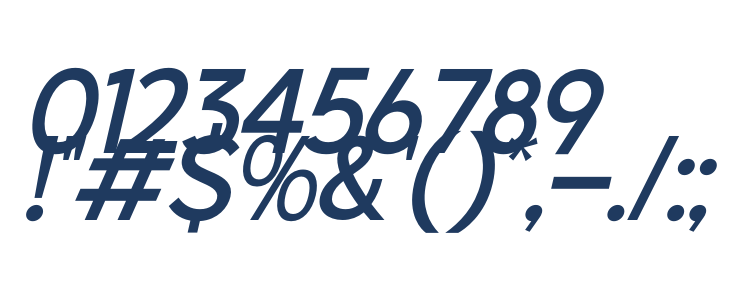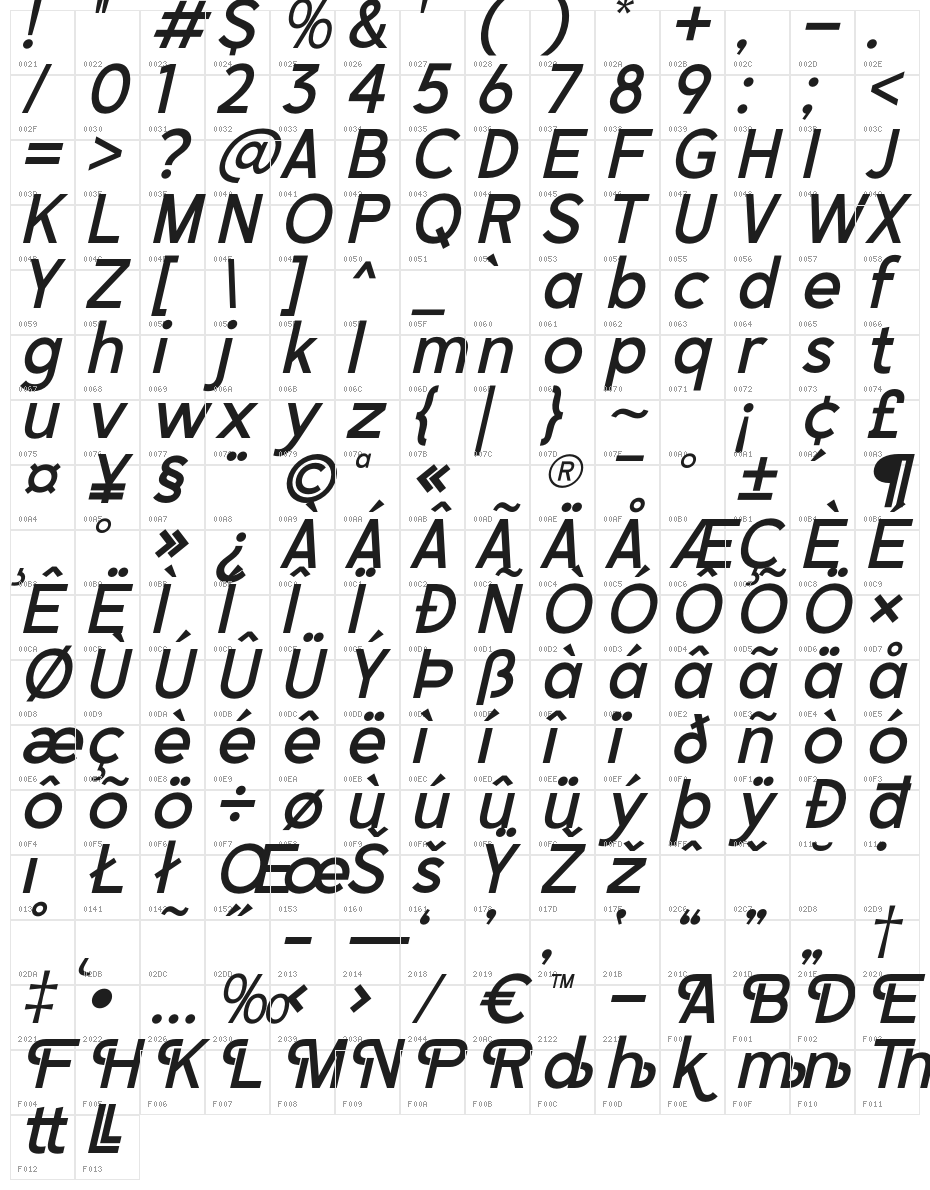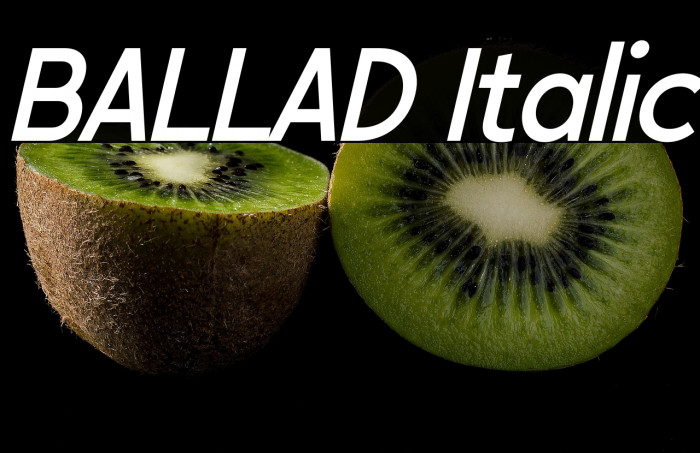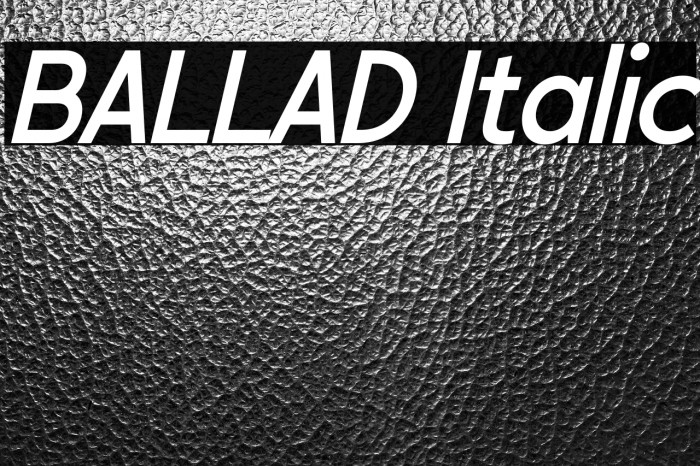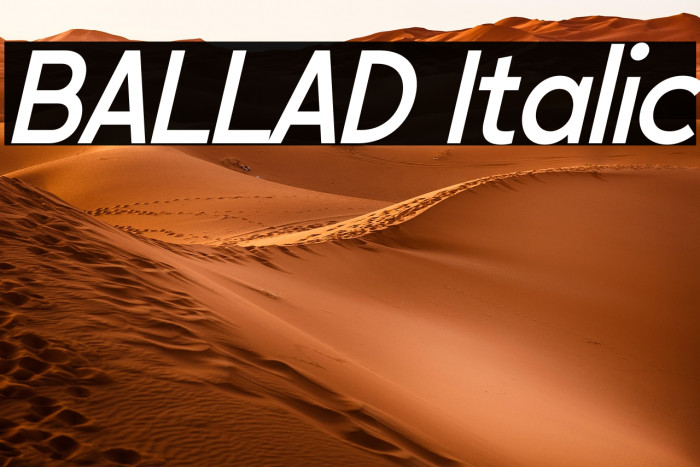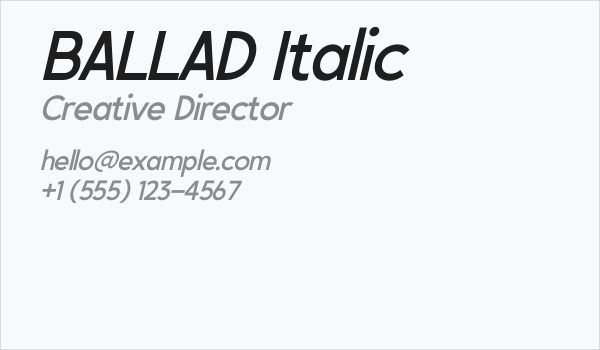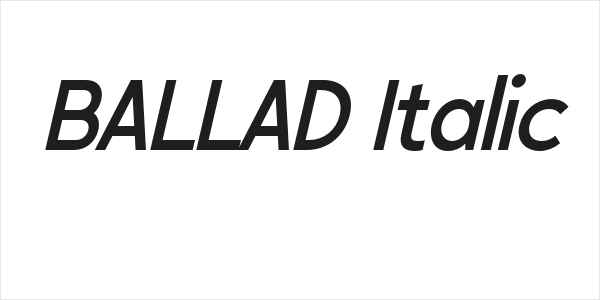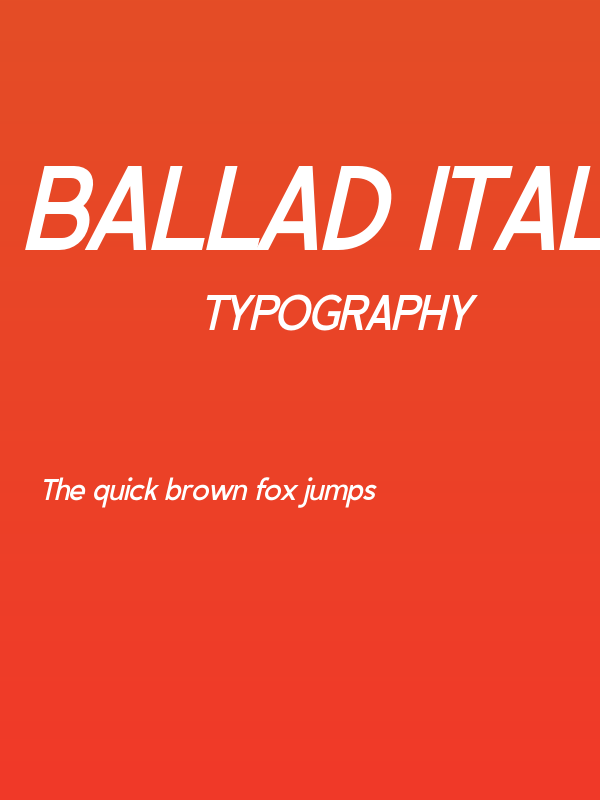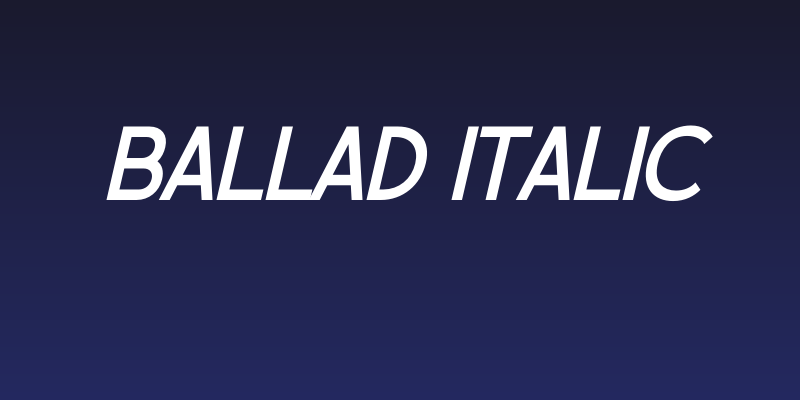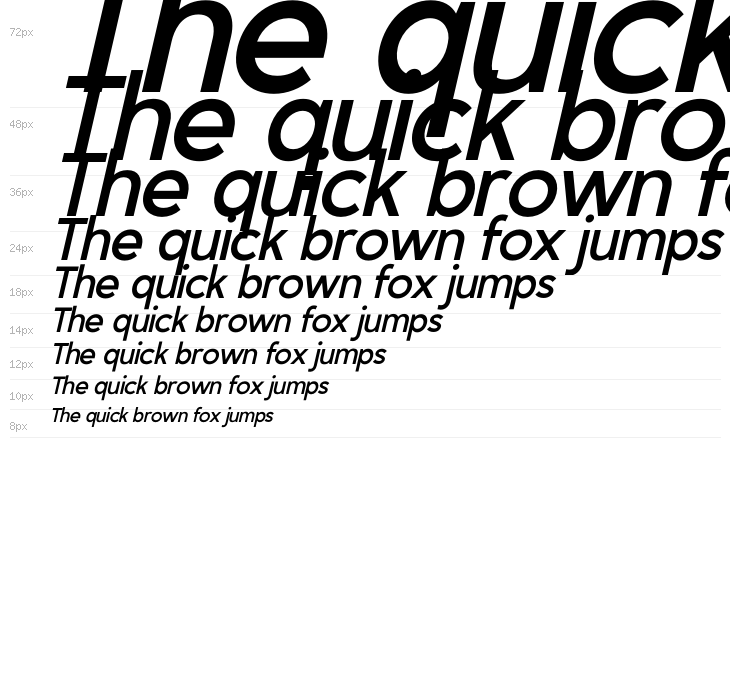
BALLAD Italic Font
BALLAD Italic Description
This font features a sleek and modern italic style, characterized by its smooth curves and clean lines. The uppercase letters are bold and slightly condensed, giving a strong presence, while the lowercase letters maintain a harmonious flow. Numbers are well-proportioned, ensuring readability. The special characters are distinct and integrate seamlessly with the overall design. This font's italic nature adds a dynamic and elegant touch, making it suitable for various creative applications.